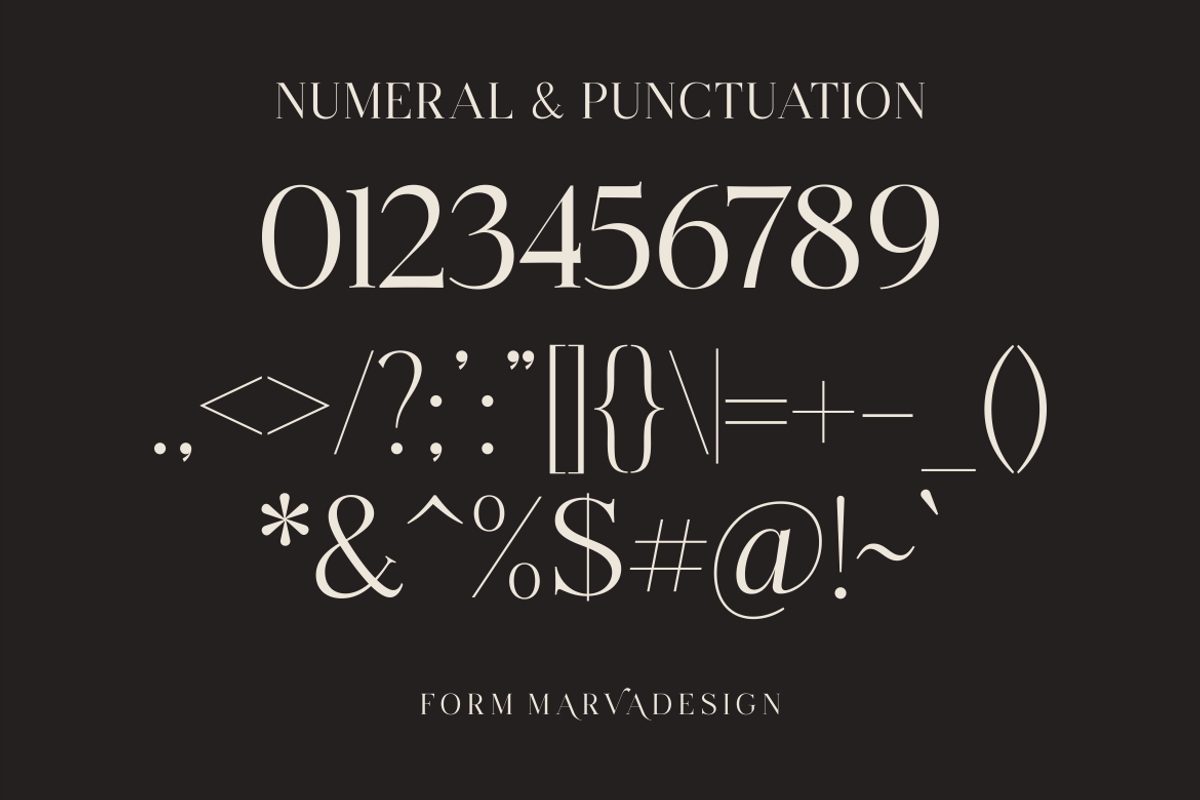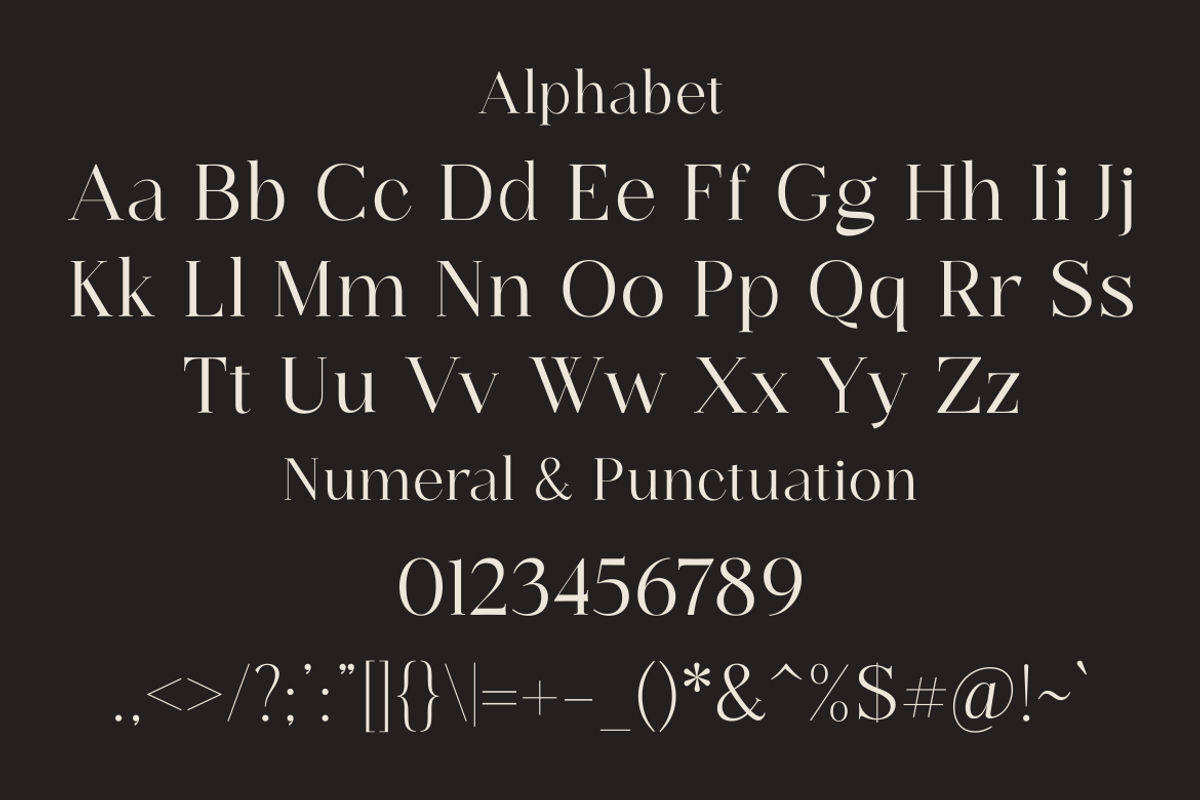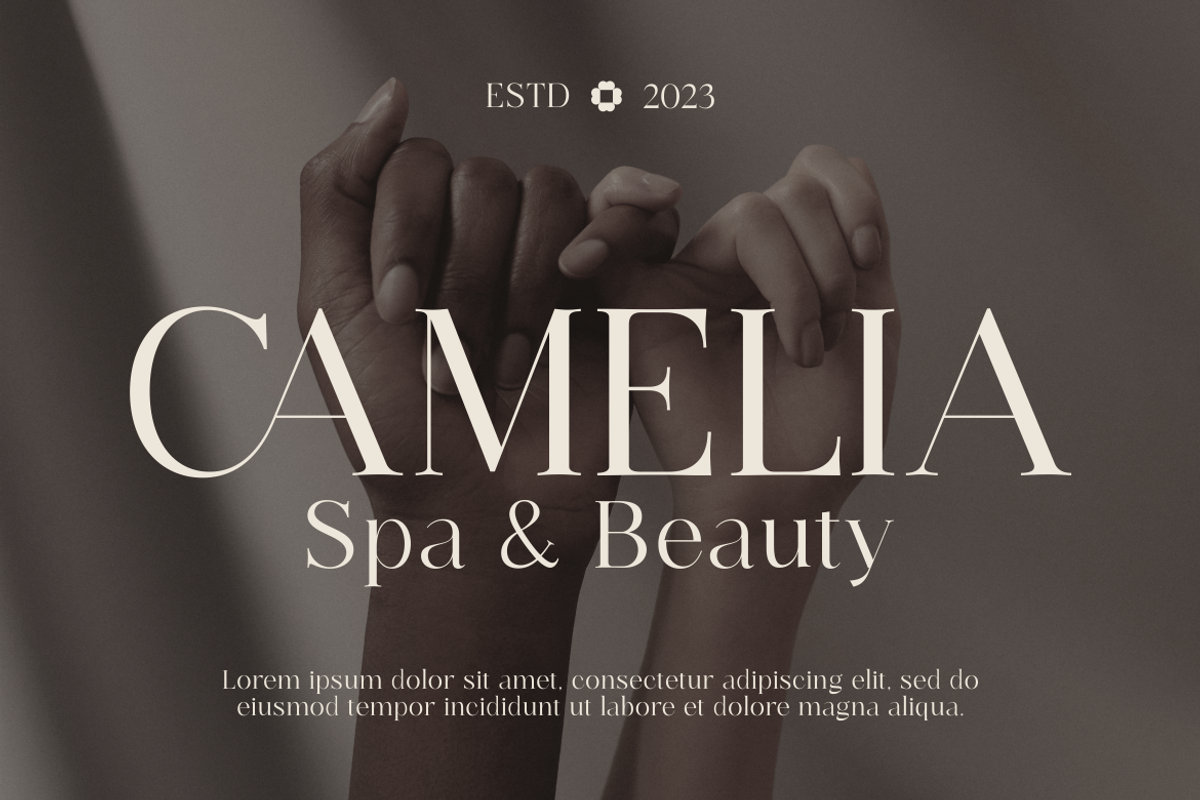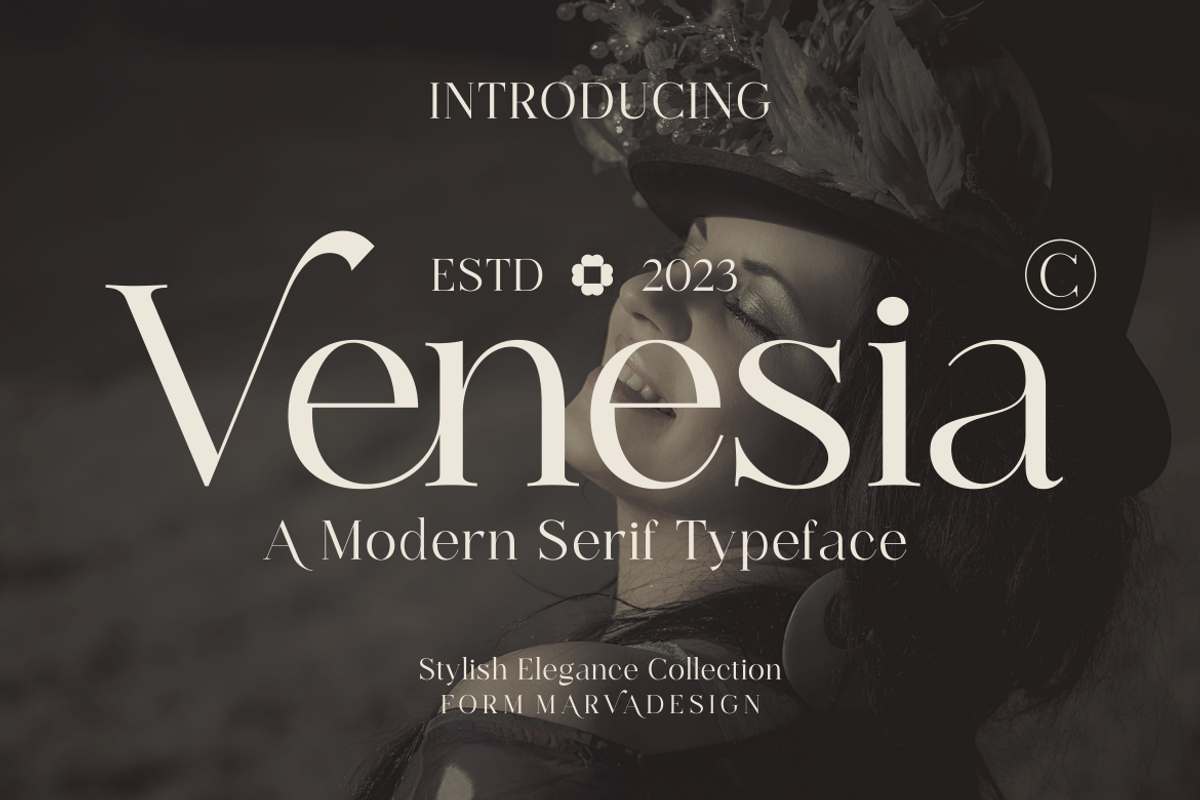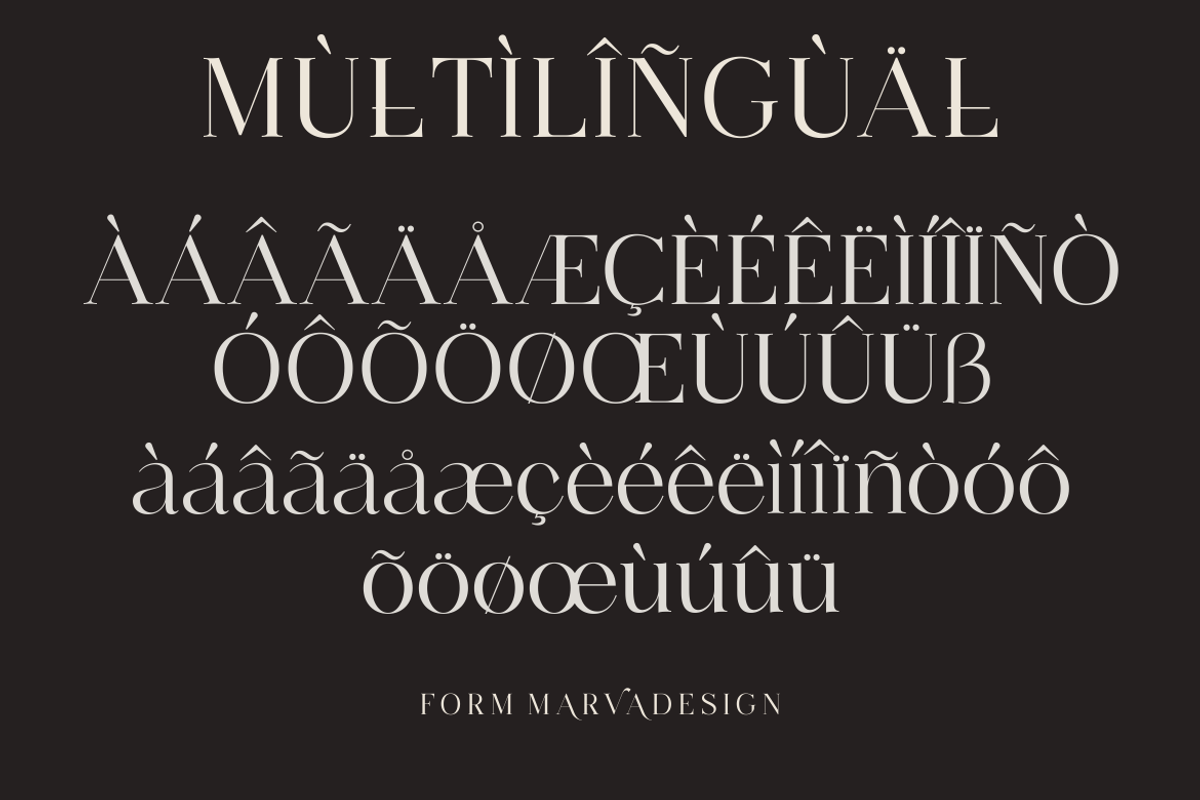
Venesia - A Modern Serif Font
Introducing our new product Venesia Font - Modern Font Venesia Font** - Modern Font is a bold and authentic display font. The font is suitable for any branding project like logo,Template Design, Product and many more. outstanding in a wide range of contexts.